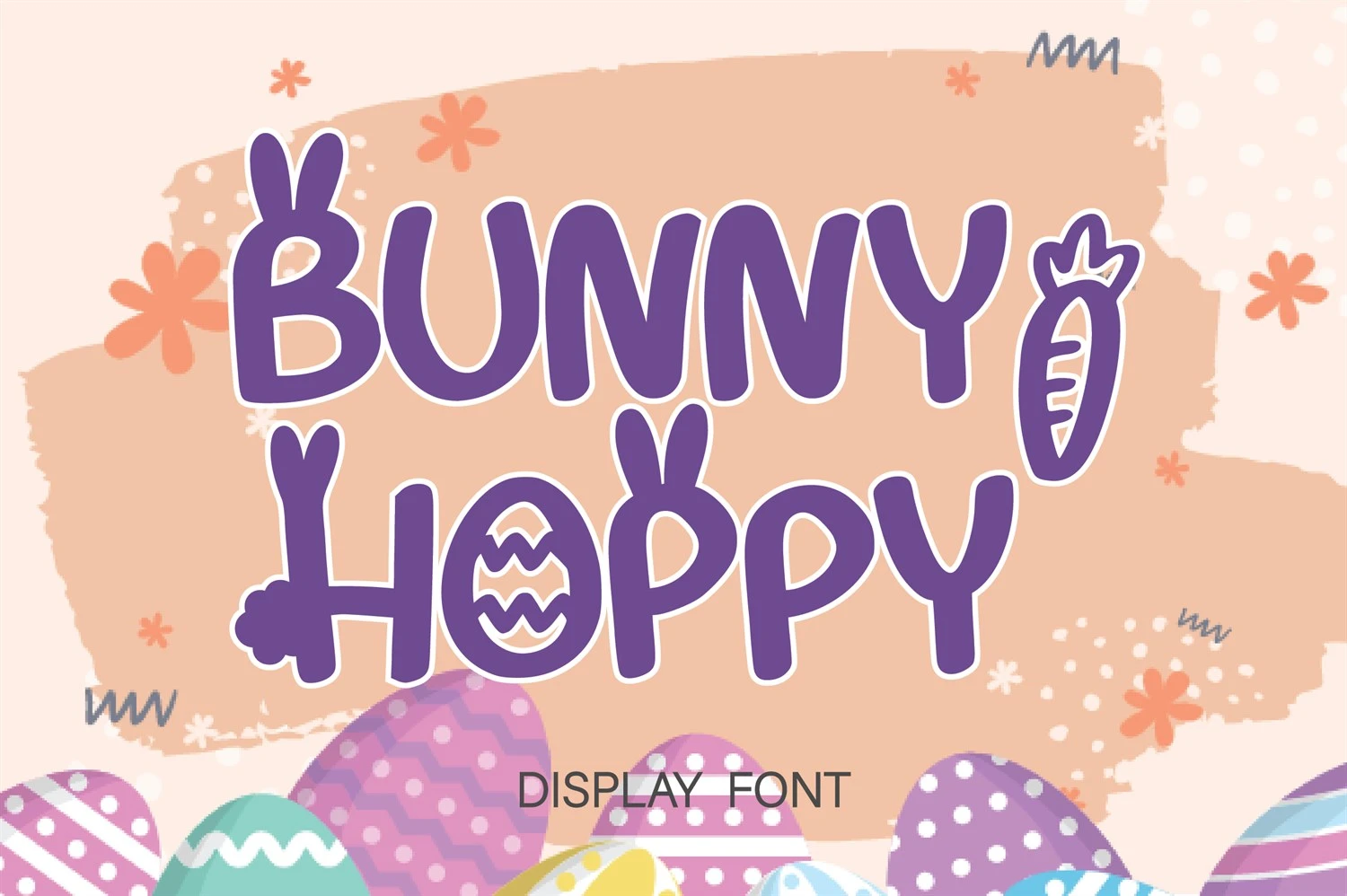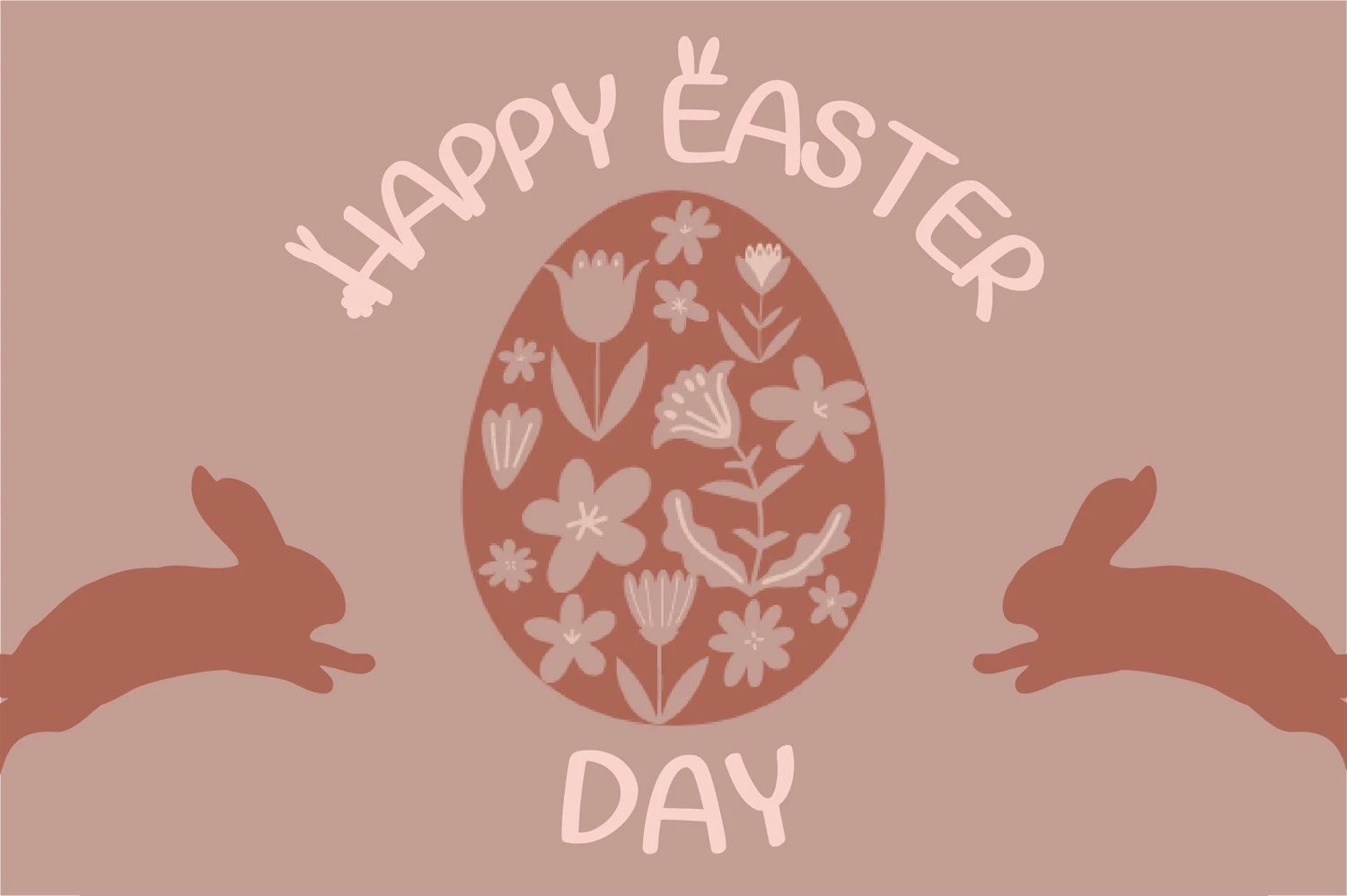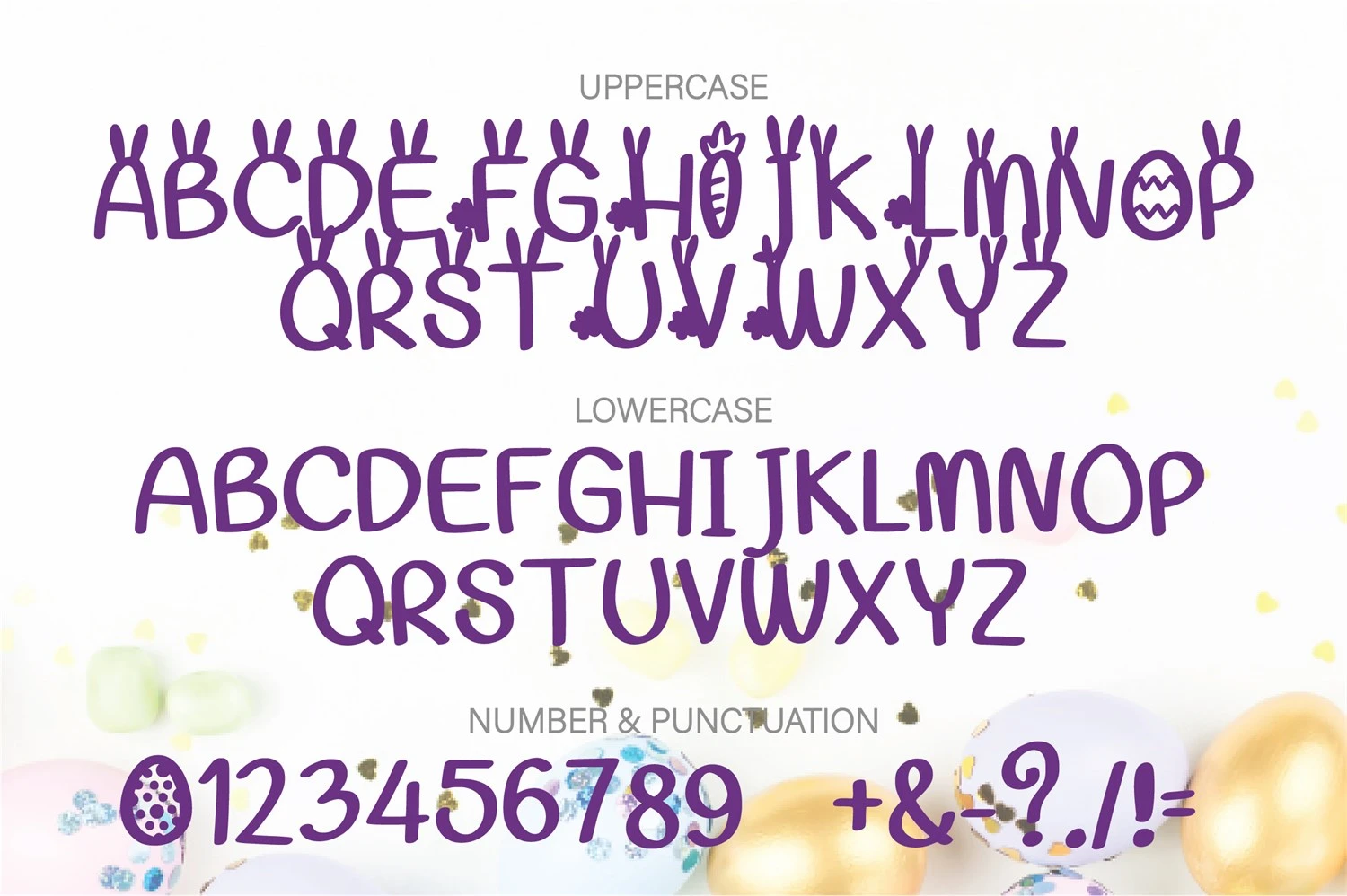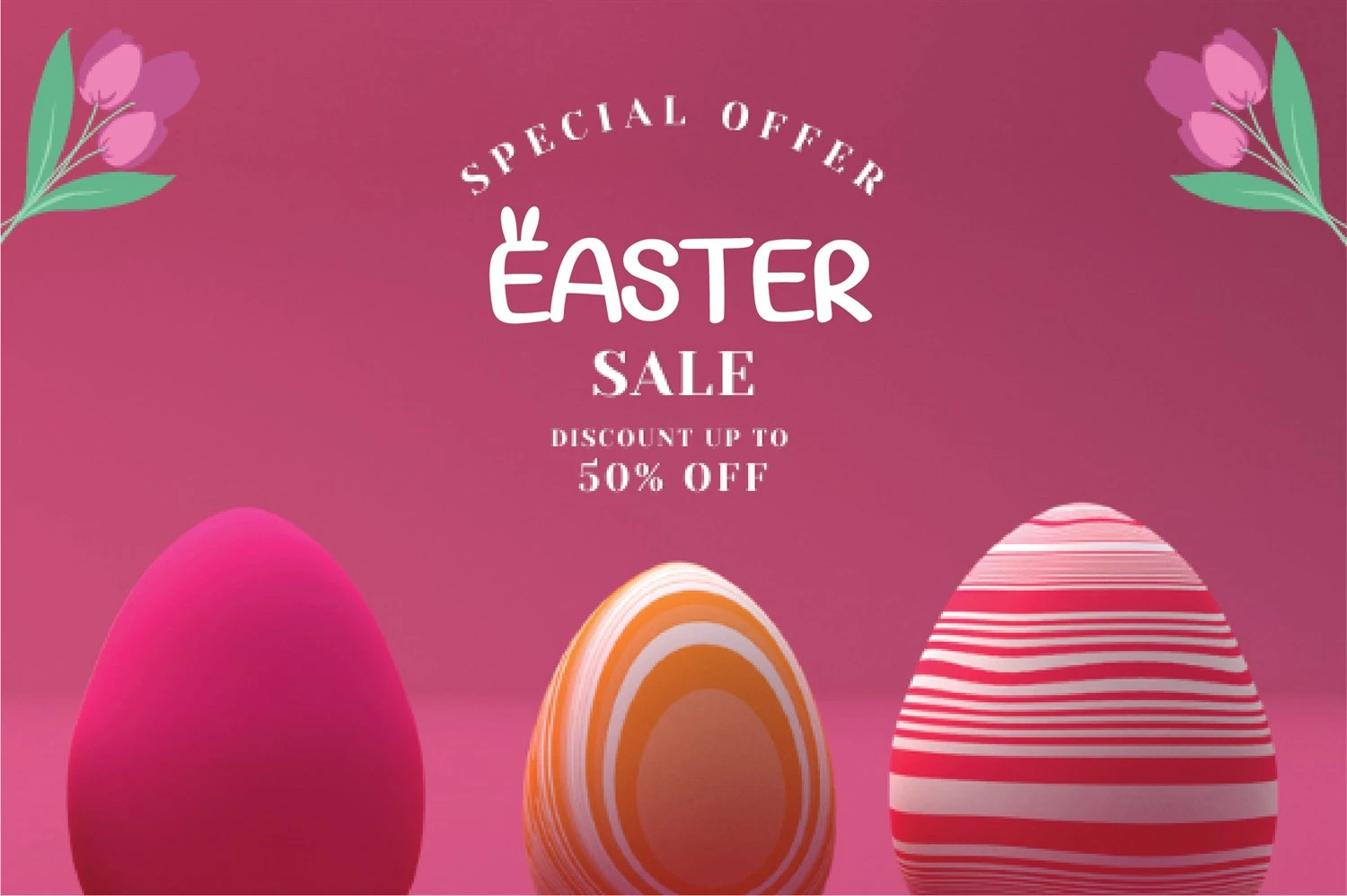
Bunny Hoppy is a cute and festive decorative font that can make your project be the cutest! Easy to use, not too thin, and not too thick. It is the best choice for creating eye-catching logos, branding materials, quotes, any childrens activity or school project.